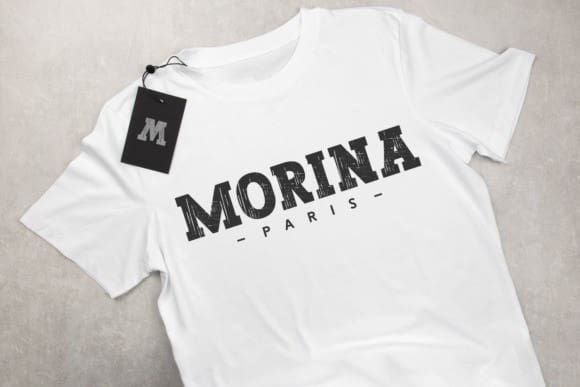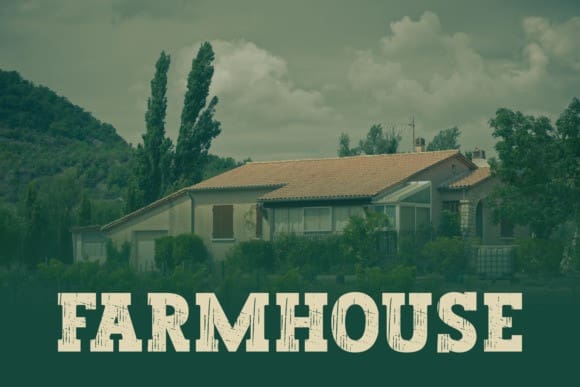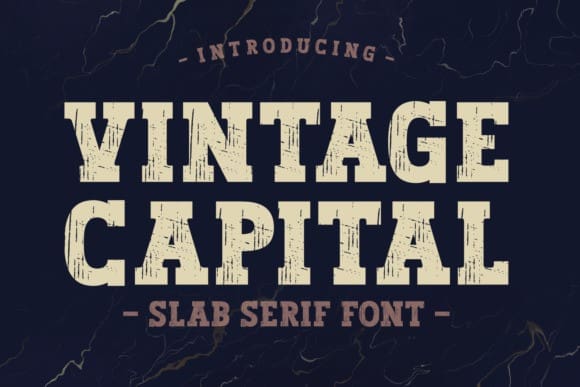
Vintage Capital Font
Vintage Capital Font, is a bold, rough textured and thick lettered slab serif font. It will elevate a wide range of crafting ideas, from cards, to branding, labels and much more.
Classification: Retro / Vintage Fonts, Slab Serif Fonts